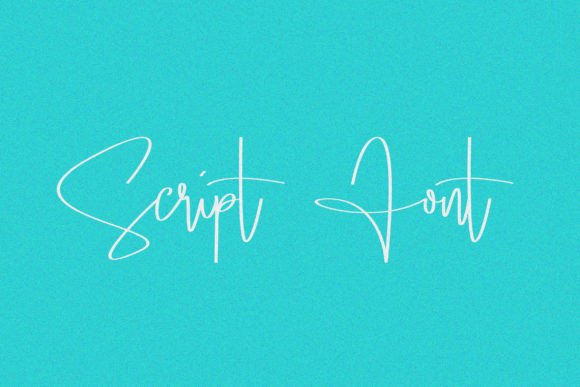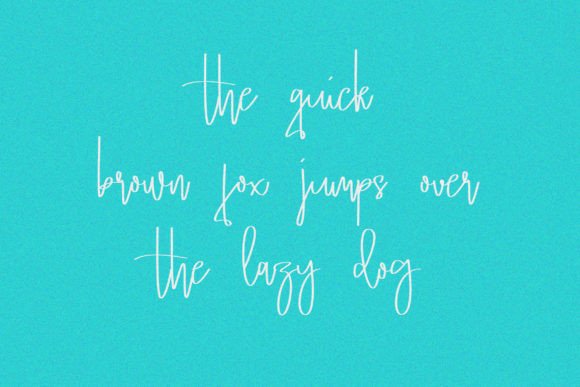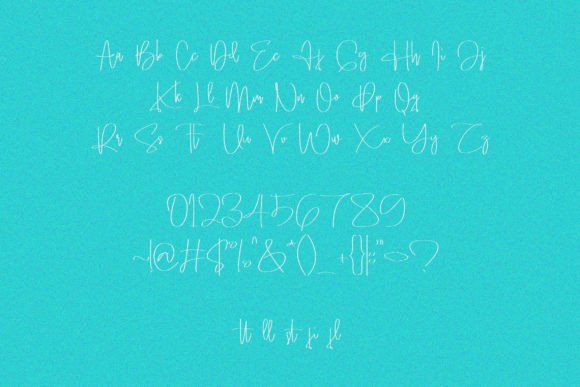
Dallotin Font: Elevate Your Designs with a Smooth Script Style
Are you a designer or crafter looking for a font that can add a touch of elegance and sophistication to your creations? Look no further than Dallotin Font, a beautiful script font that boasts a smooth style perfect for a wide range of design applications. In this article, we’ll dive into the world of Dallotin Font, exploring its features, uses, and benefits, and providing you with tips and inspiration on how to make the most of this versatile font.
What is Dallotin Font?
Dallotin Font is a script font that is characterized by its smooth, flowing lines and elegant letterforms. Its unique style makes it an excellent choice for designers and crafters who want to add a touch of personality and whimsy to their designs. Whether you’re working on a poster, t-shirt, branding project, or social media graphic, Dallotin Font is sure to make a statement.
Key Features of Dallotin Font
- Smooth Style: Dallotin Font features a smooth, cursive style that is perfect for creating elegant and sophisticated designs.
- Versatility: This font is suitable for a wide range of design applications, from posters and t-shirts to branding and social media graphics.
- Elegant Letterforms: Dallotin Font boasts beautiful, flowing letterforms that are sure to add a touch of personality to your designs.
Uses for Dallotin Font
Dallotin Font is a versatile font that can be used in a variety of design applications, including:
- Posters: Add a touch of elegance to your posters with Dallotin Font, perfect for advertising, events, or promotional materials.
- T-Shirts: Create stylish and eye-catching t-shirt designs with Dallotin Font, great for fashion brands, events, or personal projects.
- Branding: Use Dallotin Font to create a unique and memorable brand identity, perfect for logos, business cards, or letterheads.
- Social Media: Elevate your social media graphics with Dallotin Font, suitable for Facebook, Instagram, Twitter, or Pinterest.
Benefits of Using Dallotin Font
So why choose Dallotin Font for your design projects? Here are just a few benefits:
- Elegance: Dallotin Font adds a touch of elegance and sophistication to your designs, perfect for creating a lasting impression.
- Versatility: This font is suitable for a wide range of design applications, making it a great addition to your font library.
Tips for Using Dallotin Font
To get the most out of Dallotin Font, here are a few tips:
- Experiment with Colors: Try pairing Dallotin Font with different colors to create a unique and eye-catching design.
- Play with Sizes: Experiment with different font sizes to create visual interest and hierarchy in your design.
- Combine with Other Fonts: Try pairing Dallotin Font with other fonts to create a unique and stylish design.
In conclusion, Dallotin Font is a beautiful script font that is perfect for designers and crafters looking to add a touch of elegance and sophistication to their designs. With its smooth style, versatility, and elegant letterforms, Dallotin Font is sure to become a staple in your font library. So why wait? Add Dallotin Font to your designs today and enjoy the results!